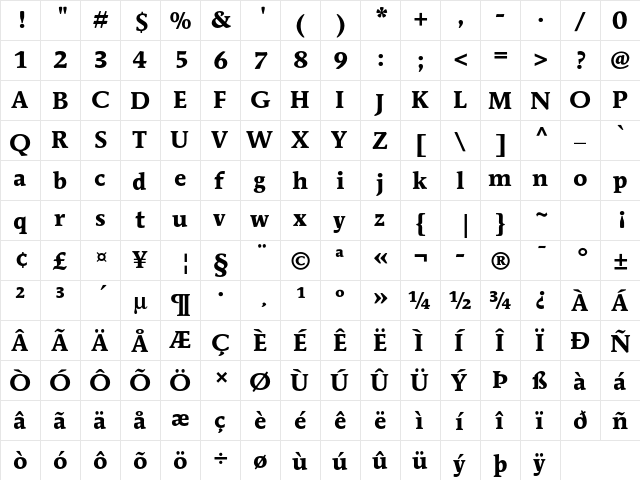
ITC Mendoza Roman Std Bold Font Preview
ITC Mendoza Roman Std Bold
ITC Mendoza Roman Std Bold Font Details
| Designer | JosΠMendoza y Almeida |
Design Context for ITC Mendoza Roman Std Typeface
ITC Mendoza Roman Std offers clean, dependable letterforms without strong stylistic allegiance, making it a practical choice for designers who need flexibility. Its bold stroke weight gives it real presence on the page.